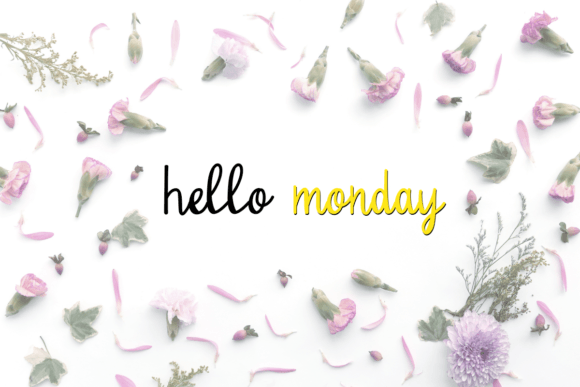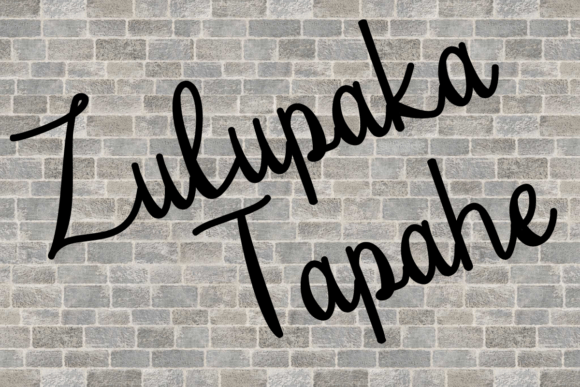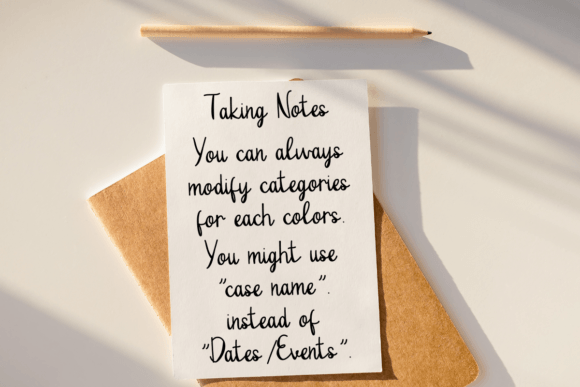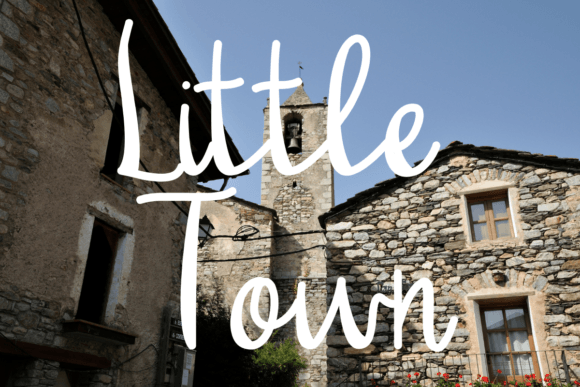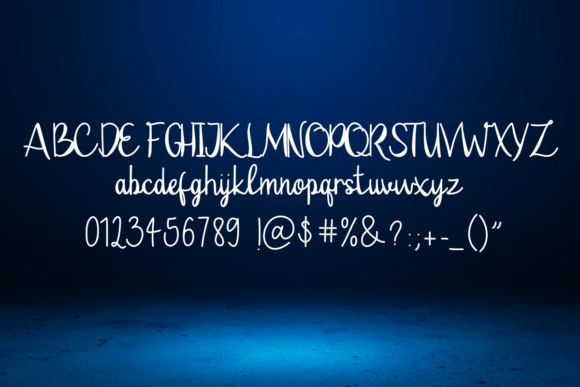
Discover the Elegance of Camilla Font: Your New Go-To for Creative Projects
In the world of typography, few fonts manage to capture the essence of elegance and uniqueness as effectively as the Camilla font. This beautiful, handwritten font has been making waves among designers, crafters, and digital artists, and for good reason. Whether you’re working on a craft project, designing digital content, creating presentations, or making personalized greeting cards, Camilla Font is a versatile and stylish choice that can elevate your work to new heights.
The Charm of Camilla Font
Camilla Font stands out from the crowd with its distinctive handwritten style, which exudes a sense of warmth and sophistication. Its elegant strokes and fluid connections make it perfect for projects that require a personal touch. The font’s unique character ensures that your work doesn’t look generic; instead, it adds a bespoke feel that can make your projects truly memorable.
Versatility Across Projects
One of the key advantages of Camilla Font is its incredible versatility. Here are just a few ways you can use this amazing font in your projects:
- Crafts: From scrapbooking to card making, Camilla Font adds a touch of elegance to any craft project. Its clear and readable style ensures that your messages and titles are not only beautiful but also easily understood.
- Digital Design: In the digital realm, font choice can make or break a design. Camilla Font brings a level of sophistication to websites, blogs, and social media graphics that can help you stand out in a crowded online space.
- Presentations: Make your presentations more engaging and professional with Camilla Font. Its elegant appearance is sure to leave a lasting impression on your audience.
- Greeting Cards: Whether you’re making birthday cards, thank you notes, or holiday greetings, Camilla Font can add a personal and heartfelt touch that makes your cards truly special.
Why Camilla Font Could Be Your New Favorite
So, what makes Camilla Font a potential favorite among designers and crafters? Here are a few reasons:
- Ease of Use: Despite its elegant appearance, Camilla Font is surprisingly easy to read and use in various contexts. This makes it a practical choice for both professional projects and personal crafting.
- Emotional Connection: The handwritten nature of Camilla Font creates an emotional connection with the reader. In an age where digital communication often feels impersonal, this font can add a much-needed touch of humanity to your work.
- Adaptability: Camilla Font can be used in a variety of sizes and colors, making it adaptable to different design needs. Whether you’re working on a detailed craft project or a large-scale digital design, this font adjusts beautifully.
Tips for Using Camilla Font Effectively
To make the most of Camilla Font, consider the following tips:
- Pair it with Complementary Fonts: For maximum impact, pair Camilla Font with fonts that complement its style. A simple sans-serif font for body text can create a beautiful contrast.
- Experiment with Colors: Don’t be afraid to experiment with different colors. Camilla Font looks stunning in rich, bold colors as well as soft pastels.
- Use it Consistently: For cohesive designs, use Camilla Font consistently across your project. This helps in creating a unified look that ties everything together.
| Author | Ch LABART |
Camilla Font is more than just a beautiful handwritten font; it’s a versatile tool that can bring elegance and uniqueness to a wide range of projects. Whether you’re a professional designer, a crafter, or simply someone who loves to dabble in digital art, Camilla Font has the potential to become your go-to choice for creating memorable and impactful work. Its charm, versatility, and ease of use make it an excellent addition to any creative toolkit. So, why not give Camilla Font a try on your next project and experience its magic for yourself?